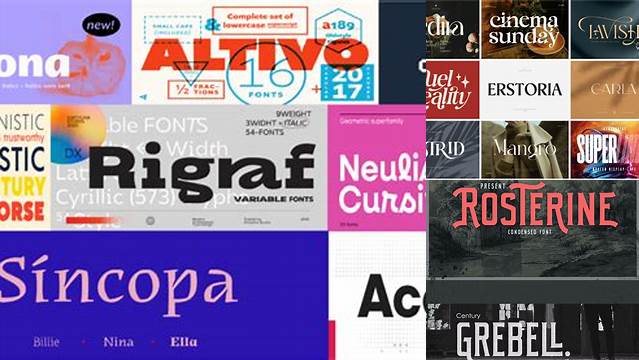
Top Modern Fonts To Watch In 2025
Alright, font fanatics! Get ready to dive headfirst into the ever-evolving world of typography. We're talking about the best modern fonts 2025 – the ones that will be gracing websites, apps, print materials, and everything in between. This isn't just about picking pretty letters; it's about understanding how fonts shape communication, evoke emotions, and define the visual identity of brands and projects. So, buckle up, because we're about to embark on a journey through the typographic landscape, exploring what makes a font modern, why it matters, and which ones are poised to take center stage in 2025. We'll be looking at a variety of styles, from sleek and minimalist sans-serifs to more expressive and experimental display fonts. Expect to see a blend of established classics that have been updated for the modern era and fresh, innovative designs pushing the boundaries of what typography can be. The goal is simple: to equip you with the knowledge and inspiration you need to make informed font choices that will help your work stand out and resonate with your audience. Let's get started and discover the exciting fonts that will define the visual trends of the coming year!
1. The Rise of Variable Fonts: Dynamic Typography in 2025
Guys, the name of the game in the best modern fonts 2025 game is flexibility, and that's where variable fonts come in. Forget static fonts with limited weights and styles; variable fonts are like chameleons, morphing to fit your exact needs. Think of a single font file that can adjust its weight, width, slant, and other parameters smoothly, creating an endless range of variations. This means you can create dynamic typography that adapts to different screen sizes, design layouts, and even user interactions. In 2025, expect variable fonts to become even more prevalent, offering designers unprecedented control and creative possibilities. They're not just about aesthetics; they're about performance. Variable fonts can significantly reduce file sizes, leading to faster loading times and a better user experience. This is crucial in today's fast-paced digital world. The increased adoption of variable fonts will also fuel innovation in web design and app development, enabling designers to create more engaging and responsive interfaces. The ability to customize fonts on the fly will open up new avenues for personalization and branding. This is particularly important for businesses looking to create a unique and memorable brand experience. Variable fonts allow for a more seamless integration of typography into the overall design, creating a more cohesive and impactful visual experience. Moreover, they empower designers to experiment with unconventional typographic solutions, pushing the boundaries of what's possible. Expect to see more designers and developers embracing variable fonts in 2025 to take advantage of their versatility and efficiency. It is no longer a niche technology; it's becoming a mainstream design element. We are just at the beginning stages of what this technology can do. There is so much more potential.
1.1 Exploring the Versatility of Variable Font Styles
Let's delve deeper, shall we? The best modern fonts 2025 will be all about variable fonts offering designers unparalleled flexibility. Imagine a single font file containing a vast array of styles, weights, and widths. This allows for dynamic adjustments to perfectly fit any design requirement. Strong emphasis should be given to how variable fonts go far beyond simple weight adjustments. They offer a full spectrum of design control. Slant, optical size, and even stylistic sets can be manipulated in real-time. This opens up vast creative possibilities, allowing designers to create fonts that respond to user interactions, screen sizes, or even the mood of the content. This leads to incredibly adaptable designs. The ability to fine-tune typography to specific needs is an advantage. This will be particularly valuable in web design. Designers can optimize their designs for different devices and resolutions. This creates consistent and visually appealing experiences. Important note: variable fonts have a huge impact on branding. They let brands create distinctive visual identities that evolve with the times. Variable fonts allow brands to create unique and memorable typography. Variable fonts will be essential in the landscape of design in 2025 and beyond. They can be customized in ways that static fonts cannot.
1.2 Variable Fonts and Web Performance: A Synergistic Relationship
Hey friends, let's talk about web performance because the best modern fonts 2025 aren't just about aesthetics; they're about speed too. Variable fonts are incredibly efficient, and this efficiency will really shine in the coming year. Consider this: Instead of downloading multiple font files for different weights and styles, you only need one file. This significantly reduces the overall file size. This leads to faster loading times. Faster loading times directly translate into a better user experience. Users are less likely to bounce from your website. In a world where every millisecond counts, optimizing for speed is critical. Furthermore, as the web continues to evolve towards more complex and interactive experiences, variable fonts become even more important. They allow designers to create dynamic typography. They will adapt smoothly to changes in content and screen size. This avoids the need for clunky workarounds. In 2025, expect to see more websites and applications leveraging variable fonts. This is because of their performance benefits and design versatility. It's a win-win for both designers and users. This will become a non-negotiable item in web design, making variable fonts crucial to performance.
2. Geometric Sans-Serif Fonts: Clean Lines and Modern Aesthetics
When we think of the best modern fonts 2025, geometric sans-serifs are always a safe bet. These fonts are characterized by their clean lines, simple shapes, and a focus on mathematical precision. They exude a sense of modernity, minimalism, and clarity, making them ideal for a wide range of applications. Think of fonts like Futura, Montserrat, and Nunito. They are popular choices for both web and print design. They're a natural fit for brands that want to convey a sense of trustworthiness, innovation, and sophistication. The appeal of geometric sans-serifs lies in their timelessness. They don't follow fleeting trends, and they have a certain understated elegance that makes them versatile. In 2025, we can expect to see more refined versions of these classics and innovative interpretations that push the boundaries. It is always a good idea to explore the latest geometric sans-serif font. Their emphasis on clarity and legibility makes them perfect for user interfaces, body text, and headlines. In this digital age, where readability is paramount, the popularity of geometric sans-serifs will continue to rise. Keep your eyes open for new designs that add a touch of personality to the established genre, ensuring they remain relevant and adaptable in the fast-paced world of design. Geometric sans-serifs aren't just fonts; they are statements about simplicity and purpose.
2.1 The Enduring Appeal of Geometric Shapes in Typography
The best modern fonts 2025 will, of course, have plenty of options and variations of geometric sans-serifs. Geometric shapes' inherent harmony and visual balance give them a special place in typography. Circles, squares, and triangles create a sense of order and simplicity. These are key components in creating a modern design aesthetic. These shapes translate into fonts with clean lines and a minimalist appeal, making them suitable for a variety of uses. These fonts' neutral appearance means they work well in many different situations. That includes everything from branding to web design. Their timeless quality ensures they stay relevant. The ability to communicate clarity and precision is another great advantage. In 2025, geometric sans-serifs will continue to be popular. Designers will explore new interpretations. These fonts will be the most popular choice for designers who value legibility and a clean design aesthetic. Think about how different geometric shapes influence a font's overall personality. Circles can create a sense of friendliness and approachability, while squares can project a sense of stability and reliability. Exploring these subtle nuances is essential for matching the font to a particular brand or project.
2.2 Best Practices for Using Geometric Fonts in Web Design
Best modern fonts 2025 are going to be influenced by how to effectively use geometric fonts in web design. This is where we should focus, since these fonts look incredible, but they have to be used the right way. Legibility is key. While geometric fonts excel in simplicity, ensuring they remain easily readable across various devices and screen sizes is crucial. This is where you should focus. Prioritize contrast. Make sure there's sufficient contrast between the font color and the background. This will allow for easy readability. Choose appropriate weights. Avoid using overly thin weights for body text. These can be difficult to read at smaller sizes. Think about the font's size. Size is something that can vary. It is easy to read with a larger size. Consider the overall layout. Geometric fonts can look great in headlines and navigation menus. They might require more careful spacing in body text. It is useful to test different layouts. Check to see what looks best. Pay close attention to the kerning and tracking. These settings will impact the font's overall appearance and readability. Proper spacing will prevent the text from appearing cramped or uneven. Finally, keep the overall design aesthetic in mind. The most effective use of a geometric font complements the design's overall tone and style.
3. Serif Fonts Making a Comeback: Blending Tradition with Modernity
Hello, font lovers! The best modern fonts 2025 will see the revival of serif fonts, with a modern twist. For years, sans-serif fonts have been the go-to choice for modern design, but serifs are making a strong comeback. We're not talking about your grandma's Times New Roman, though! These are contemporary serifs. These serifs blend tradition with modern design elements, resulting in fonts that are both elegant and highly readable. Think of a delicate serif combined with a clean, minimalist design. It offers a beautiful balance between sophistication and approachability. In 2025, expect to see a surge in the use of serif fonts. This is especially true in branding, editorial design, and anywhere a touch of classic charm is needed. The resurgence of serifs will challenge the dominance of sans-serifs. This creates a more diverse and exciting typographic landscape. Designers will be experimenting with new interpretations of classic styles. This creates fonts that feel both familiar and fresh. The use of serifs will introduce a sense of heritage and trustworthiness. This is something that many modern brands are looking for. They want to showcase authenticity and character. Let's see what is new and how serifs are being revitalized.
3.1 Modern Serif Font Characteristics and Design Trends
One of the core tenets of the best modern fonts 2025 is how serifs are changing to embody modernity. This is what is going on, so let's break down what makes a modern serif font. Key features include a balanced blend of traditional serif elements with contemporary design principles. This is the secret. Modern serifs often have a higher contrast between thick and thin strokes. This gives them a more refined and elegant appearance. Expect to see fonts with sharp, clean serifs. There will be very subtle detailing, as well as a focus on readability and versatility. This is the core principle. Designers are experimenting with different weights, widths, and styles. They are trying to find the right balance. Modern serifs are designed to be versatile. They should work well in both headlines and body text. Expect to see fonts optimized for digital screens. The goal is to be readable across all devices. It is important to consider the specific needs of the design project. The trend in 2025 will be serifs that feel both classic and innovative. Modern serifs are all about striking a balance between tradition and innovation. That will become the key.
3.2 Incorporating Serif Fonts into Contemporary Design Projects
Alright friends, let's get practical about how to incorporate serifs in your design project! The best modern fonts 2025 are definitely making a case for serifs. When selecting a serif font, think about the tone and message of your brand. A classic serif can convey sophistication and heritage. A more modern serif will give off a contemporary vibe. Pair serif fonts with sans-serifs. This creates contrast and visual interest. Experiment with different weights and styles to achieve the desired effect. Consider readability. Even if you love a particular serif font, make sure it's legible at different sizes and on various devices. Consider the context. Think about how the font will be used across different platforms. Test different font sizes. The goal is to make sure the font is easy to read. Always maintain a balance. Don't overload the design with serifs. Too much can feel dated. A serif font can enhance a design. It will add a touch of elegance and sophistication. Choosing the right font will amplify the impact of the design.
4. Display Fonts: Bold Statements and Expressive Typography
Let's talk about making a statement. Best modern fonts 2025 will be all about display fonts. They are designed to be the stars of the show. These fonts are created for headlines, titles, and any situation where you want to grab attention. Expect to see bold, expressive designs that will push the boundaries of typography. These aren't meant for body text. Display fonts are about making a statement. These fonts come in a variety of styles, including hand-drawn, geometric, and experimental. They offer designers the opportunity to inject personality and creativity into their work. As design trends shift, we can expect even more bold and innovative display fonts. These will stand out from the crowd. It's all about creativity and making a memorable impression. Display fonts are perfect for branding, advertising, and any project that requires a visual impact. They are the visual equivalent of a shout. Expect to see more designers embrace display fonts. It is important to make a bold statement. This can be done by using exciting colors and layouts. This is a perfect way to get noticed. Display fonts will play a pivotal role in defining the visual identity of brands and projects. It's all about expressing your message.
4.1 The Role of Display Fonts in Modern Branding and Design
Friends, let's talk about display fonts and their place in best modern fonts 2025, particularly in the world of branding and design. Display fonts are more than just pretty faces; they are essential tools for conveying a brand's personality and values. They help brands establish a unique visual identity. A well-chosen display font can make a project stand out. It's important to select fonts that align with the brand's mission. When done right, the message will resonate with the target audience. Display fonts play a crucial role in grabbing attention. They serve as visual hooks that draw viewers into the design. They are used in logos, headlines, and other key design elements. Effective display fonts make information memorable. These fonts create a lasting impression. Design will play a vital role in all these functions. The use of display fonts in branding allows brands to express creativity and innovation. They will shape the way brands will be perceived. They also reinforce brand recognition. This makes display fonts essential for modern branding and design. Brands need to use display fonts. This is what will help them stand out in a crowded marketplace.
4.2 Innovative Trends in Display Font Design for 2025
In best modern fonts 2025, the trends are changing with display fonts, so let's dive into what's new. Expect to see more experimental and unconventional designs that break away from traditional norms. Designers are pushing the boundaries of typography with unique shapes. They're using variable fonts, custom lettering, and interactive elements to create a more immersive experience. The designs are becoming more versatile. There is a shift toward fonts that are designed to be used in both digital and print mediums. A major trend is also the integration of technology. Designers are incorporating 3D effects, animations, and other interactive features into their fonts. Sustainability and inclusivity are important too. Expect to see display fonts that are optimized for accessibility. They must be optimized for different languages and cultural contexts. Overall, display font design is more diverse and innovative than ever before. The designers are all about capturing attention. In 2025, display fonts are ready to take your designs to the next level.
5. Hand-Drawn and Script Fonts: Adding a Personal Touch
Guys, let's look at a different direction for the best modern fonts 2025. Let's dive into hand-drawn and script fonts. They add a unique and personal touch to design projects. These fonts are characterized by their organic, human-like appearance. They evoke feelings of warmth, authenticity, and creativity. Whether it's a flowing script or a rough, textured lettering, these fonts bring personality to any project. Expect to see a rise in these fonts in 2025. Designers use them to create a sense of intimacy and approachability. They are well-suited for branding, invitations, and anything that needs a touch of personality. Hand-drawn and script fonts break free from the rigidity of digital designs. They create designs that feel more human. You'll find them everywhere. These fonts will continue to evolve. Expect to see fresh takes on script lettering. They will be perfect for creating a memorable brand. Hand-drawn and script fonts are all about adding that human element to design.
5.1 Exploring the Characteristics and Styles of Hand-Drawn Fonts
If we are thinking about the best modern fonts 2025, we should think about the features of hand-drawn fonts. These fonts are characterized by their imperfections and unique characteristics. The fonts are anything but perfect, just like humans. The unique strokes create a sense of authenticity and artistry. There is a vast range of styles to explore. You'll find anything from rough, textured fonts to smoother, more elegant scripts. Expect to see everything. These fonts are more versatile than you think. They can be used in many ways. They work well for logos, headlines, and any project where a personal touch is needed. It is easy to inject personality into designs with hand-drawn fonts. This is key to creating a more engaging experience. The uniqueness of each font makes it stand out. They are a great tool for expressing creativity and authenticity. Hand-drawn fonts offer a welcome break from the uniformity of digital design.
5.2 Best Practices for Incorporating Script and Handwritten Fonts
Best modern fonts 2025 will emphasize that these fonts should be used in a way that does not overwhelm the design. It is crucial to find balance. That means choosing the right font and using it sparingly. The point is to use it as a compliment. Here are some things to remember: Select a readable font. Make sure it is legible. Choose the right font size and spacing. That will make all the difference. Consider the context. Ensure the font is used in the right place. Headlines and accents are the best places for it. When using script fonts, avoid using them for body text. Think about the contrast with other fonts. Create a sense of balance. If you follow these tips, the effect will be more effective. Always test different fonts. The goal is to ensure readability. These fonts should be used to add a personal touch, not to distract from the message. If you do it right, then everything will go well.
6. Monospace Fonts: Embracing the Retro Aesthetic
Hello everyone! Get ready to go back in time because the best modern fonts 2025 will see the revival of monospace fonts. These fonts are characterized by the same width for each character. It is a nod to the days of typewriters and early computer displays. While they might seem like a throwback, monospace fonts have found a resurgence in modern design. They are very popular in coding, but they also bring a unique retro aesthetic to many designs. Think of them as a blend of nostalgia and functionality. In 2025, expect to see more designers embrace monospace fonts. They will make a statement with their distinctive appearance. The fonts are perfect for projects that want to project a sense of authenticity and history. They will also bring a clean, minimalist look. The resurgence of monospace fonts reflects a broader trend toward blending the past with the present. This is key. These fonts will make a statement. Monospace fonts offer designers a chance to stand out from the crowd.
6.1 Modern Applications and Design Trends of Monospace Fonts
If we consider the best modern fonts 2025, we should consider modern uses for monospace fonts. These fonts are popular in code. However, they have gone beyond that. Today, you can find them in a range of applications. They have become a design element. They are useful for creating a retro or vintage aesthetic. Monospace fonts are used in website design. They create unique and eye-catching headings. The fonts are a great choice for data visualization and displaying information. Think of them as a way to create a minimalist aesthetic. You will see them used in posters. In the past few years, monospace fonts have seen more innovation and design. Many new versions will include more weights, styles, and features. Expect designers to experiment with the fonts in new and innovative ways. These fonts offer a unique and versatile aesthetic. They are a powerful tool for creating a unique look.
6.2 Effective Strategies for Incorporating Monospace Fonts in Design Projects
Here are some strategies on how to best incorporate monospace fonts in best modern fonts 2025. First, consider the context. Monospace fonts work well for specific uses. Choose wisely, because the font will have an impact. Then, consider readability. Always ensure your chosen font is easy to read. Make sure your font does not look too small. Try using it in larger sizes. Then, make sure there is sufficient contrast. This ensures that the text is visible against the background. Experiment with spacing. Monospace fonts may require more careful spacing. The goal is to create a visually pleasing look. Don't use monospace fonts for body text. They will not look good. Monospace fonts are a tool for a specific design aesthetic. Use them wisely. When you add a little creativity, then your projects will be great.
7. Color Fonts: Adding Vibrancy and Dimension
Hey, guys! Let's add some color, shall we? The best modern fonts 2025 will use color fonts. They add vibrancy and dimension to any design. These are not your typical black-and-white fonts. Color fonts allow designers to incorporate multiple colors, gradients, and complex designs within a single character. The range of possibilities is infinite. Think of vibrant typography that truly grabs the eye. In 2025, we expect to see more creative uses of color fonts. They are used in logos, illustrations, and many other projects. Color fonts allow designers to create visually stunning designs that capture attention. They are a fantastic way to show your personality. Color fonts add a layer of depth and detail. They allow for creative and eye-catching designs.
7.1 The Technological Advancements Powering Color Font Innovation
Guys, let's talk about the technology behind the best modern fonts 2025! Color fonts are not simply using a single color for each letter. This is not all. The technology is complex. It has advanced significantly. These advancements are allowing designers to use multiple colors, gradients, and complex designs. One key technology is the use of OpenType-SVG and COLR/CPAL. These methods allow designers to embed vector graphics and color palettes within font files. This provides greater flexibility and detail. This enables designers to create fonts with intricate designs. Color fonts require careful optimization. It is necessary to ensure they display well on different devices. The technology continues to evolve. In 2025, you can expect to see more innovation and improvements.
7.2 Designing with Color Fonts: Best Practices and Creative Applications
Friends, let's talk about how to design with color fonts. The best modern fonts 2025 will show you how to maximize color fonts. Choosing the right color font is crucial. Consider the style and message of your project. This is very important. Create a harmonious color palette. Select colors that complement the design's overall aesthetic. Use color fonts strategically. They work well in headlines, logos, and areas that need to stand out. Consider legibility. Make sure the text remains easy to read. Always test the font on different devices. Check to see how they look. Color fonts provide a great opportunity to create memorable designs. If you consider these things, you can take your designs to the next level.
8. The Future of Typography: Anticipating 2025's Trends
We are almost there, guys! Let's predict the future of the best modern fonts 2025. Typography is always evolving. We will continue to see innovation. Variable fonts are here to stay. They will continue to be a core element of design. Geometric sans-serifs remain popular. They will continue to evolve. We will see the revival of serifs. Expect more hand-drawn and script fonts. Color fonts will gain traction. Monospace fonts will continue to be popular. Technology will play a larger role. Accessibility will become more important. Designers will focus on inclusivity. The focus will be on customization. These trends will define the future of typography.
8.1 Emerging Technologies and Their Impact on Font Design
Guys, the best modern fonts 2025 will be driven by emerging technologies. Expect to see more use of artificial intelligence (AI). This will help in font creation and customization. There will be an increased focus on augmented reality (AR). This is how fonts will look in the future. We will see more dynamic fonts. These will react to the user's environment. There will be a focus on sustainable design. Designers will create fonts that are eco-friendly.
8.2 How to Stay Ahead of the Curve in the Typography World
If you want to succeed in the world of best modern fonts 2025, you must keep learning. Learn about new trends and technologies. This is the most important thing. Always experiment and push your boundaries. Stay connected with the design community. Share your work. Never stop learning. This is what will allow you to succeed.